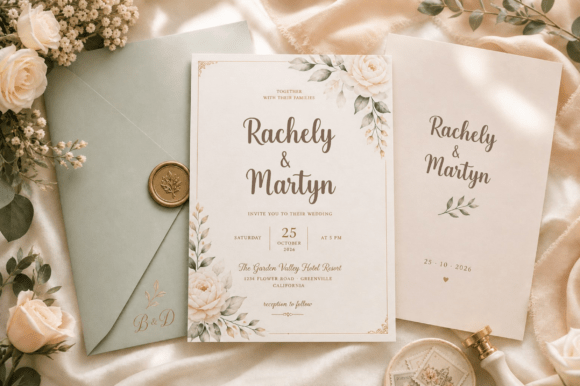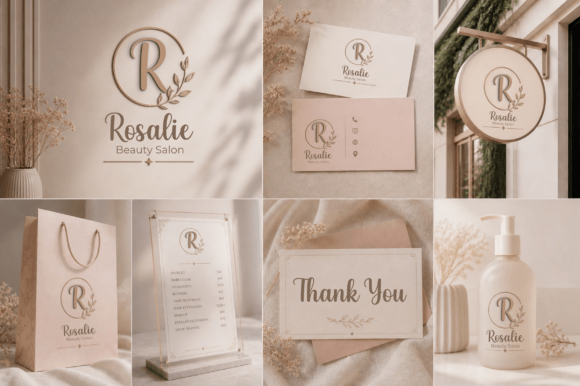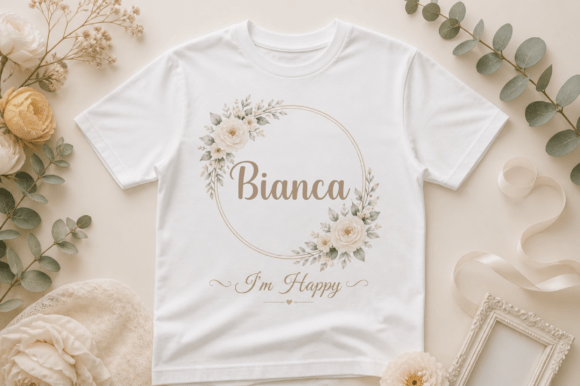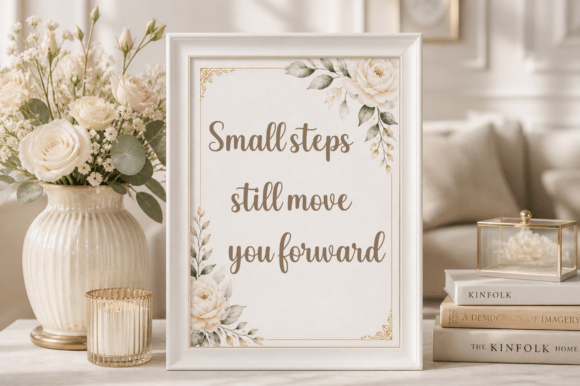
Introduction to Royhal Font
As a designer, there’s nothing quite like the thrill of crafting the perfect visual identity for a creative project. You’ve spent hours pouring over design resources, searching for that elusive combination of style and sophistication that will leave a lasting impression on your audience. And then, you stumble upon it – the perfect font, with its elegant curves and refined swashes. For many designers, that font is the Royhal Font, a high-quality script calligraphy font that exudes timeless beauty and an upmarket appeal.
Whether you’re working on a wedding invitation, a branding project, or a social media graphic, the Royhal Font is the perfect choice for designers who crave a sophisticated and romantic visual impact. With its delicate yet assertive character, this font delivers a top-tier aesthetic that merges modern touch with a timeless appeal – and it’s available for free download with a transparent background, making it a valuable resource for any design project.
Key Features of Royhal Font
Honest Review: Royhal Font
I recently stumbled upon the Royhal Font, a high-quality design resource that caught my attention. As a designer, I’m always on the lookout for unique and versatile fonts to elevate my creative projects. And let me tell you, the Royhal Font does not disappoint!
- High-quality design: The Royhal Font has a sophisticated and elegant feel to it, making it perfect for a variety of design applications.
- Wide range of uses: The Royhal Font can be used for everything from branding and logos to digital products and print materials.
- Limited font styles: While the Royhal Font is high-quality, it’s available in only a few styles, which may limit its versatility in certain design projects.
- No bold or italic options: This may make it difficult to use the font in situations where a bold or italic version is required.
Overall, I’m impressed with the Royhal Font. It’s a solid design resource that can add a touch of sophistication to any creative project. While it may have some limitations, I believe it’s a valuable addition to any designer’s toolkit.
Royhal Font
The Royhal Font is a high-quality design resource that can elevate your creative project with its sleek and modern design. This free download is perfect for designers and artists looking for a versatile font to use in their work.
Tips for Getting the Most Out of Royhal Font
To get the most out of the Royhal Font, use it with a transparent background to create a clean and modern look. Experiment with different font sizes and colors to add depth and visual interest to your design. Additionally, pair the Royhal Font with other design elements, such as images and shapes, to create a unique and eye-catching design.
The Royhal Font is commonly used for a variety of design projects, including logos, social media graphics, marketing materials, posters, flyers, brochures, presentations, reports, and documents. Its versatility and high-quality design make it an excellent choice for designers and artists looking for a reliable design resource.